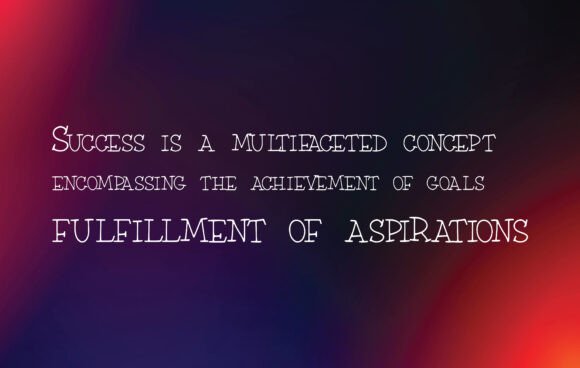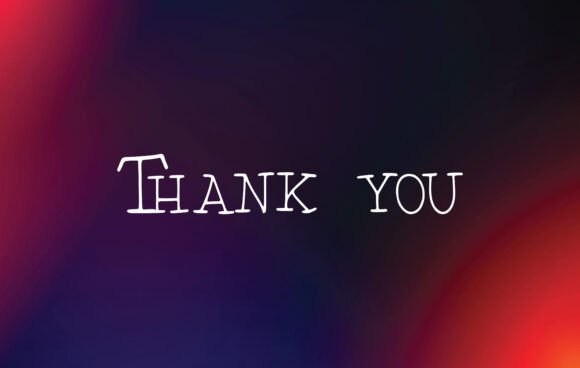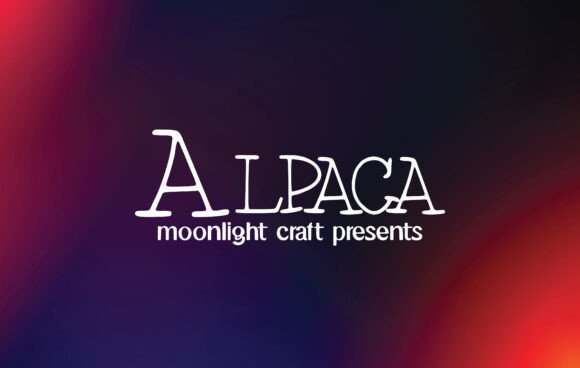
The Alpaca Font: A Designer’s New Best Friend
I’ll never forget the time I was working on a branding project for a trendy new coffee shop. I had the logo designed, the color palette picked out, and the overall aesthetic nailed – but I just couldn’t find the right font to tie everything together. The client wanted something modern, yet approachable; stylish, yet easy to read. I spent hours scouring font websites, but nothing seemed quite right. That was until I stumbled upon the Alpaca Font. ✨
I’ve been using the Alpaca Font for a while now, and I have to say – it’s quickly become a go-to favorite in my collection. Here’s what I love about it:
• ✅ Versatility: This font works beautifully for both titles and body text, making it perfect for a wide range of projects.
• ✅ Readability: The Alpaca Font is incredibly easy to read, even at smaller sizes.
• ✅ Style: It has a unique, modern aesthetic that’s sure to elevate any design.
• ✅ Flexibility: Whether you’re designing for print or digital, this font adapts seamlessly.
• ⚠️ Limited language support: While the Alpaca Font covers a range of languages, it may not support every language or character set.
• 🤔 Some glyphs can be finicky: Occasionally, certain glyphs or special characters may require a bit of tweaking to get just right.
The Story Behind the Alpaca Font
The Alpaca Font was designed with the modern creative in mind. Its creator, a talented typographer, aimed to craft a font that was both stylish and versatile. Inspired by the gentle, endearing nature of alpacas, the font’s unique character set and OpenType features were designed to bring a touch of whimsy and fun to any design project.
What makes the Alpaca Font so versatile? The Alpaca Font’s clean lines, balanced proportions, and range of OpenType features make it suitable for a wide range of projects, from print materials to digital interfaces.
Does the Alpaca Font support multiple languages? Yes, the Alpaca Font covers a range of languages, including Latin-based languages and some non-Latin scripts.